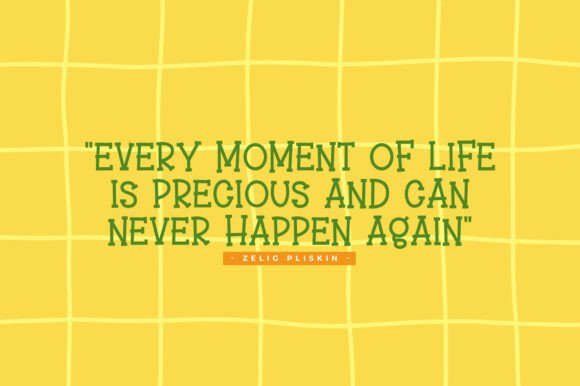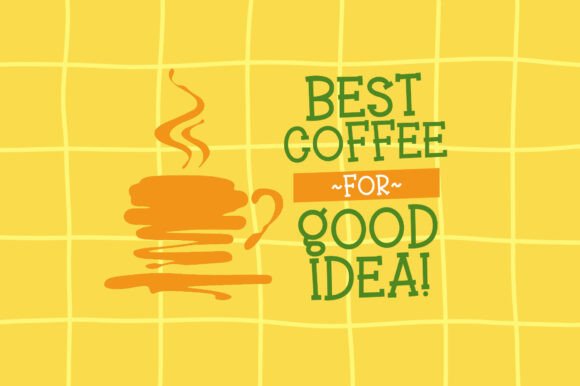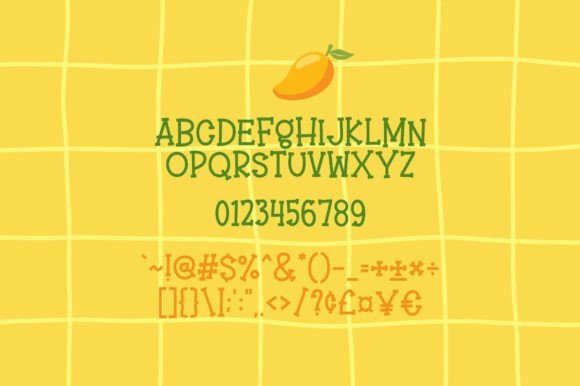
Introduction to Mango Nice Font
Do you remember the thrill of discovering a new design tool that takes your creative project to the next level? For many designers, it’s a moment of pure excitement and possibility. Imagine having access to a font that not only elevates your design but also adds a touch of personality to it. That’s exactly what the Mango Nice Font offers.
| 👤 Author | Khurasan |
As a valuable resource for designers, the Mango Nice Font is a modern and cute font that can be used for a wide range of creative projects. From posters and logos to magazines and book covers, this high-quality font is sure to make your designs stand out. With its transparent background and versatility, it’s a must-have for any design enthusiast looking to add a unique touch to their work.
- Unique, hand-drawn design with a transparent background, allowing for flexibility in design composition.
- Unique characteristics include intricate details and a modern aesthetic, making it ideal for creative projects.
Honest Review: Mango Nice Font
I recently stumbled upon the Mango Nice Font while searching for a high-quality design resource for my latest creative project. As a designer, I’m always on the lookout for fonts that are both stylish and functional, and I was pleasantly surprised by what I found.
Here are some of the things that work well with Mango Nice Font:
- ✨ Beautiful, modern design that’s perfect for creative projects
- ✨ High quality and crisp typography that’s ideal for printing or digital use
However, I did encounter a few limitations with Mango Nice Font:
- ⚠️ The font is limited to a single style, which may not be suitable for projects that require a more extensive font family
- ⚠️ The transparent background option can be a bit finicky to work with, but this is a minor issue
Overall, I’m impressed with the Mango Nice Font and would highly recommend it to fellow designers. While it may not be the most extensive font family, its high quality and modern design make it an excellent addition to any design resource library.
Tips for Getting the Most Out of Mango Nice Font
Use Mango Nice Font on a transparent background to create a seamless and professional design. Experiment with different font sizes and styles to add depth and visual interest to your design. You can also use Mango Nice Font in combination with other design elements, such as images and graphics, to create a unique and creative project.
Mango Nice Font is perfect for creating eye-catching titles and headings for your design project. You can also use it to create a cohesive and professional brand identity. Additionally, Mango Nice Font is a great choice for designers who want to add a touch of elegance and sophistication to their design.